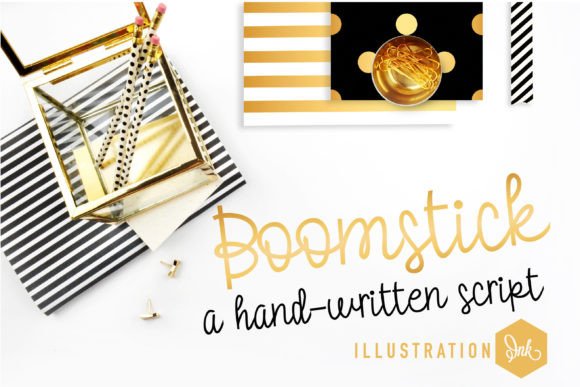
Introducing our sensational script font, "Boomstick"! Crafted by the talented team at Illustration Ink, this font is a delightful blend of playful shapes and unexpected details, guaranteed to add a touch of whimsy to your designs. Whether you're creating greeting cards or social media graphics, Boomstick is the perfect choice for those seeking a fun and charming aesthetic.
With its unique and eye-catching design, Boomstick stands out effortlessly from the crowd. Each letter is meticulously crafted, showcasing the creativity and artistry that went into its creation. The result? A font that exudes personality and brings your words to life.
But Boomstick isn't just about appearances; it's also highly functional. Its versatility makes it suitable for a wide range of projects. Need a font for your next handwritten PDF? Look no further! Boomstick is the best font for handwriting PDFs, offering clarity and legibility while maintaining its fun and quirky essence.
What sets Boomstick apart is its ability to evoke emotions and capture attention. Imagine the joy and excitement your audience will feel when they come across your designs adorned with this captivating font. It adds that extra element of surprise and delight, leaving a lasting impression on anyone who lays eyes on it.
When it comes to marketing your products or services, standing out is of utmost importance. Boomstick gives you the edge you need to grab attention and make a lasting impact. Its captivating nature draws users in, making them eager to explore what you have to offer.
Don't settle for ordinary when you can have extraordinary. Boomstick is the font that will elevate your designs and set you apart from the competition. Say goodbye to dull and predictable fonts, and embrace the world of creativity and imagination that Boomstick brings.
In conclusion, if you're looking for a font that combines playful shapes, unexpected details, and a touch of whimsy, Boomstick is the perfect choice. Its versatility, legibility, and captivating design make it the best font for handwriting PDFs and beyond. Let Boomstick be your secret weapon for creating designs that leave a lasting impression. Get ready to wow your audience and unlock endless creative possibilities with Boomstick!